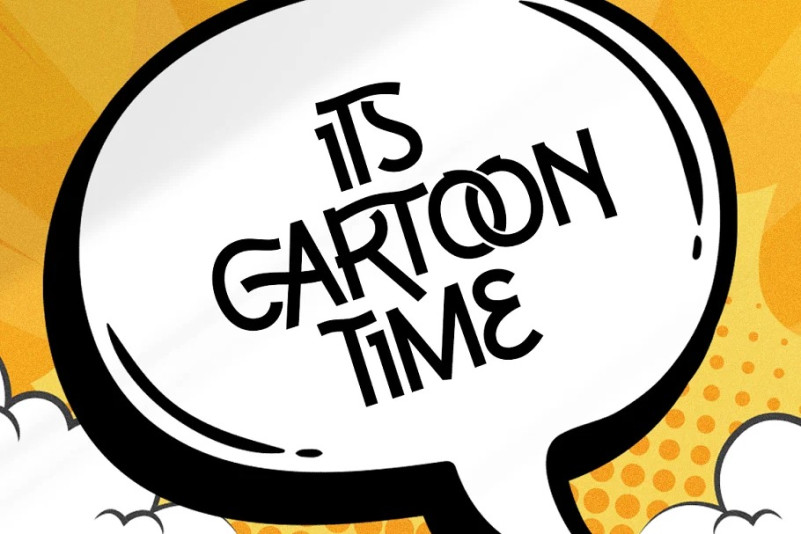
Grinko Font
Grinko Display Font is an elegant and casual retro decorative font. Each uppercase and lowercase letter has its own characteristics, plus some alternates and ligatures. This font is bold and tight kerning, very suitable for your design projects such logo tagline, logotype, name card, flyers invitation, magazine header etc.